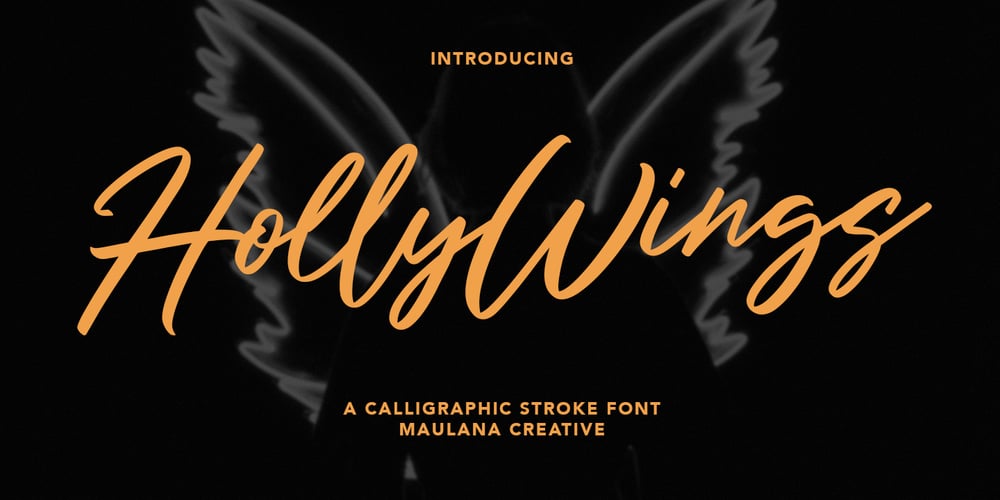
Holly Wings
Holly Wings font
Holly Wings Font Family was designed by Gilang Maulana and published by Maulana Creative. Holly Wings contains 1 styles and family package options. Give your designs an authentic handcrafted feel. “Holly Wings Calligraphic Font” is perfectly suited to signature, stationery, logo, typography quotes, magazine or book cover, website header, clothing, branding, packaging design and more.Thanks for use this font ~ Maulana